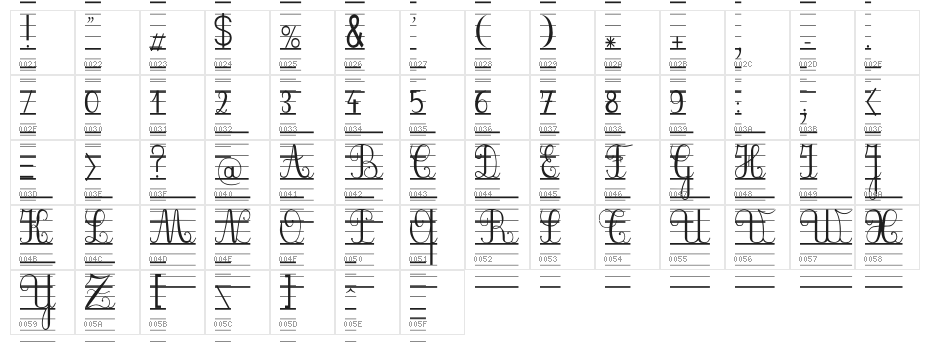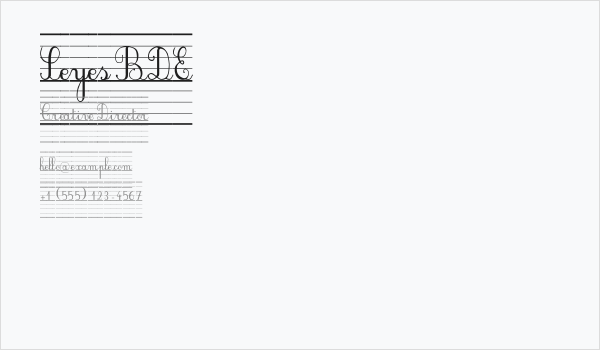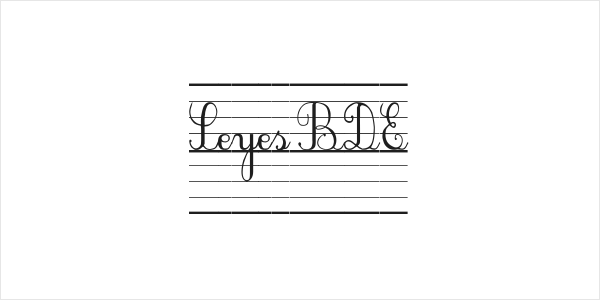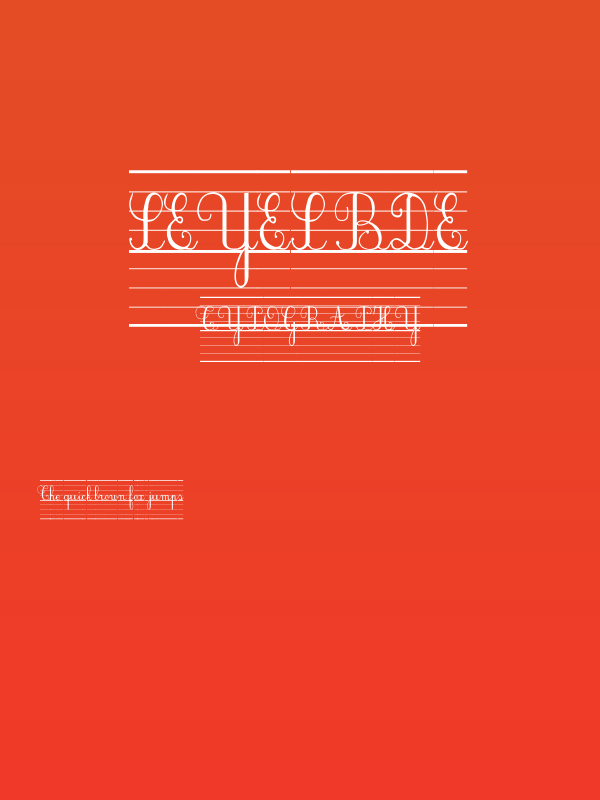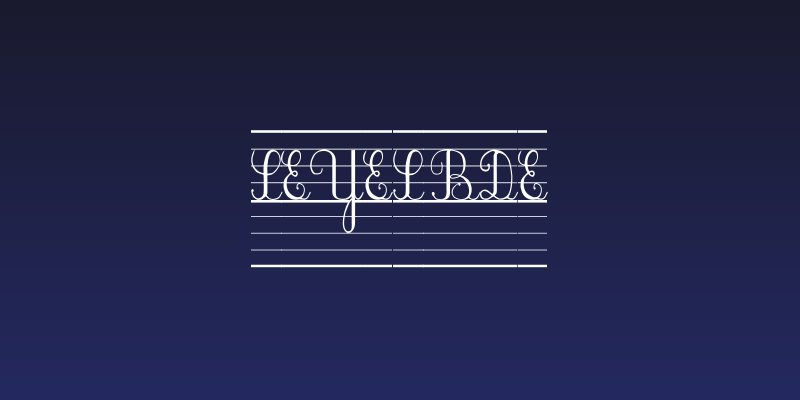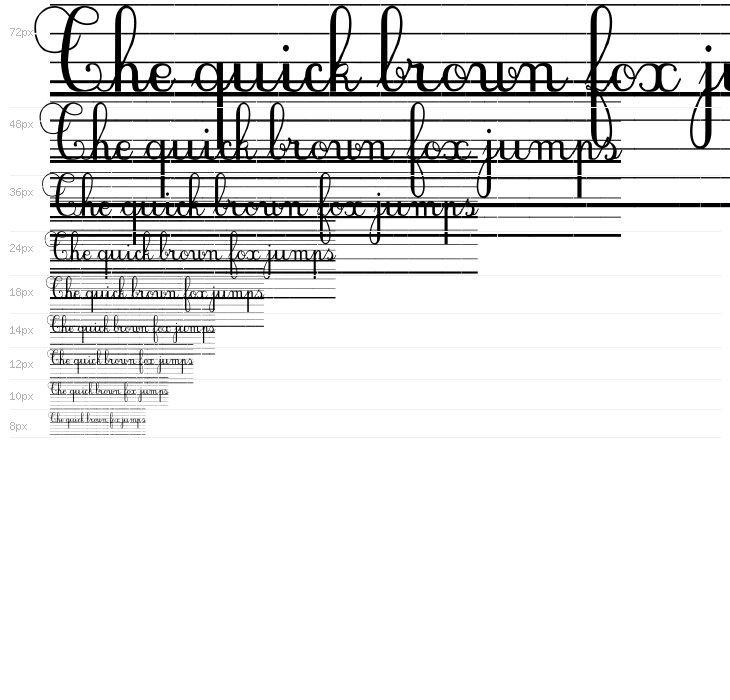
SeyesBDE Font
SeyesBDE Description
This font exhibits a classic cursive style with elegant loops and flourishes, reminiscent of traditional handwriting. The uppercase letters are ornate, with intricate swirls that add a decorative touch. Lowercase letters maintain a consistent flow, enhancing readability while preserving the script's artistic flair. Numbers and special characters are designed to match the overall aesthetic, ensuring a cohesive look across all text elements. The font's delicate strokes and balanced proportions make it suitable for projects requiring a touch of sophistication and elegance.